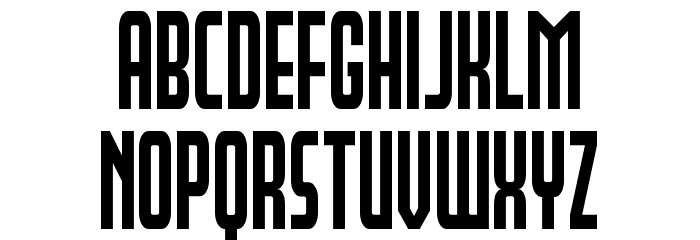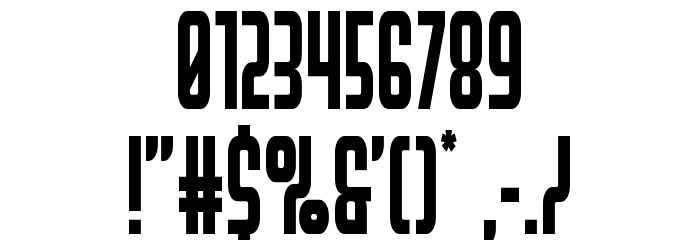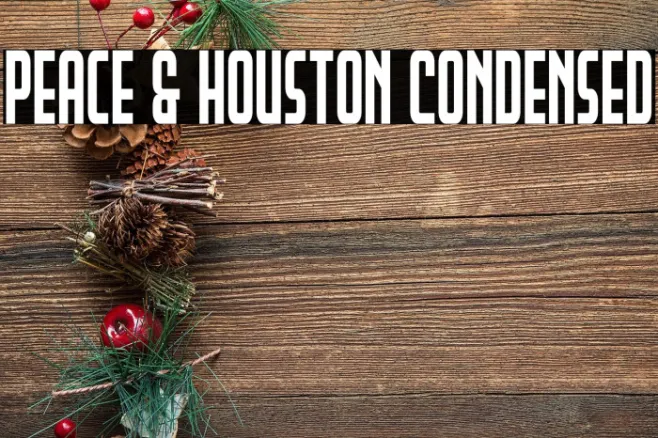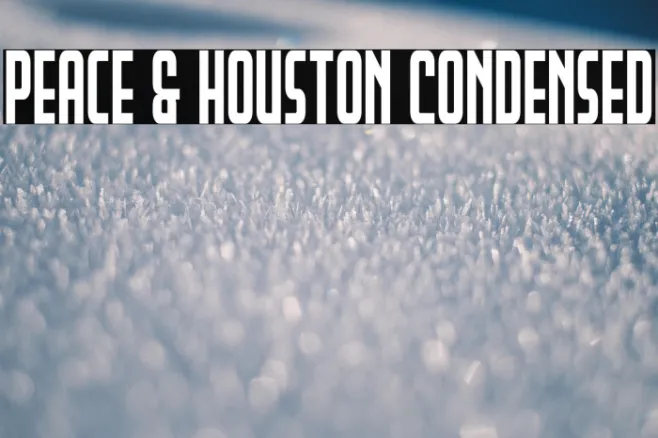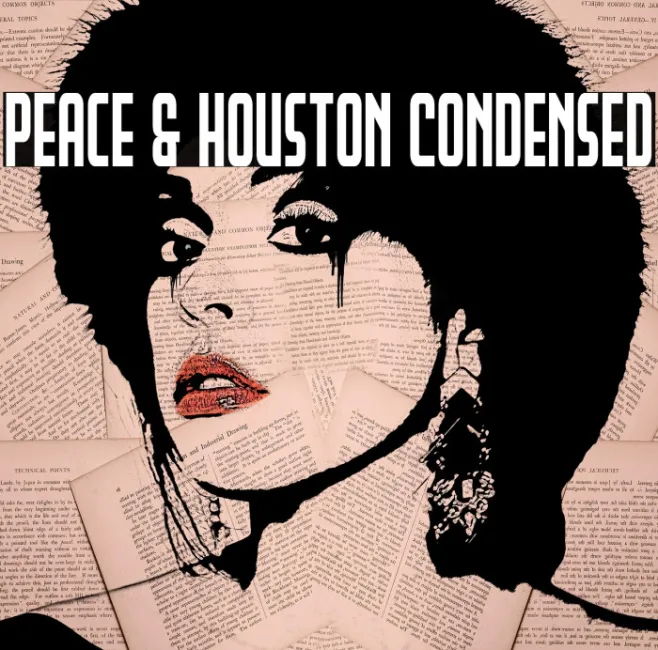
Peace & Houston Condensed Font
This font features a bold and condensed style with a strong geometric structure. The uppercase letters are uniform in height, creating a cohesive and impactful appearance. The lowercase letters maintain the same boldness, ensuring readability and consistency. Numbers are clear and distinct, matching the overall bold aesthetic. Special characters are well-integrated, providing versatility for various uses. The font's condensed nature allows for efficient use of space, making it ideal for headlines and titles where impact is essential.
A bold, condensed font with a geometric structure, perfect for impactful headlines.
- Proposed Projects: Ideal for branding, posters, and any project requiring a strong visual impact.